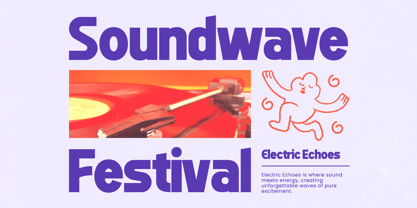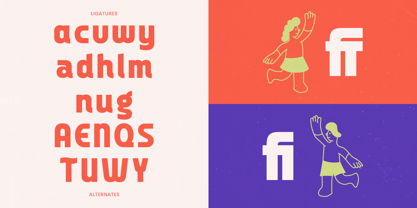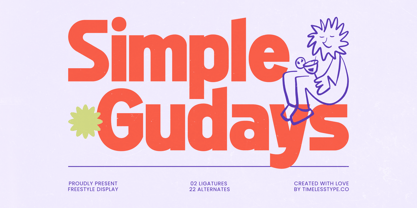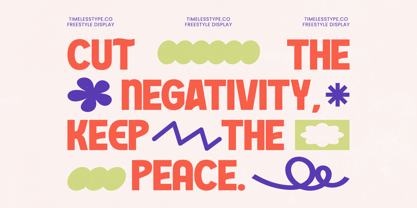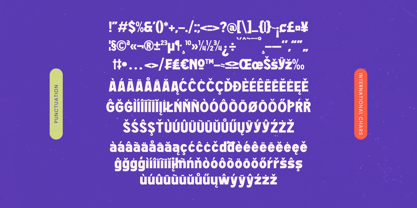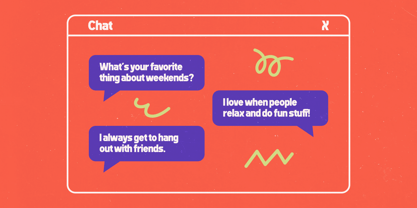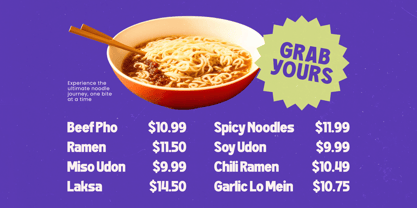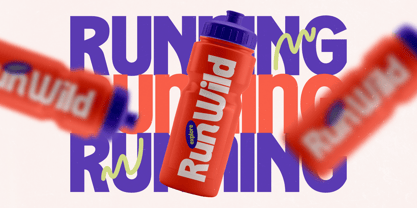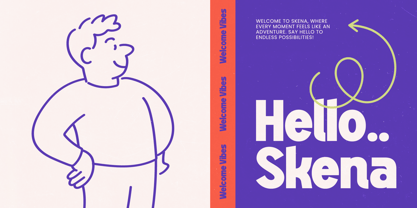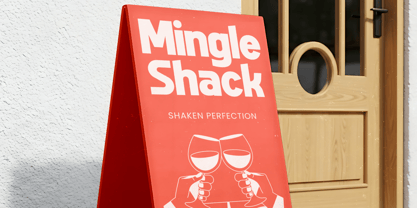
Simple Gudays
Die Schriftfamilie Simple Gudays wurde von Heru Utama Putra entworfen und von Timelesstype Studio veröffentlicht. Simple Gudays enthält 2 Stile und Familienpaketoptionen. Mehr über diese Familie
Simple Gudays is a bold freestyle display font crafted for fun, friendly, and effortlessly modern visual identities. Its chunky shapes, soft edges, and playful rhythm make it perfect for lifestyle branding, poster design, children’s products, social media graphics, and any creative project that wants to feel cheerful and approachable. With 2 ligatures and 22 alternates, it gives designers the flexibility to build expressive headlines with personality and charm.